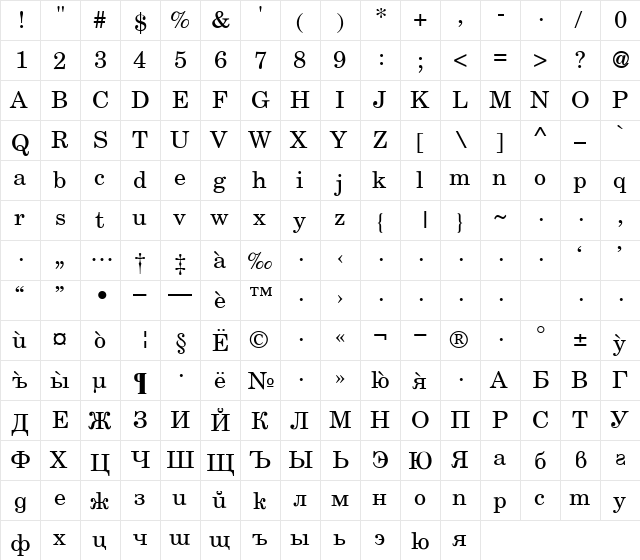
NewSaturionModernCyr Regular
Design Context for NewSaturionModernCyr Typeface
NewSaturionModernCyr takes a measured approach to typography — its balanced proportions and neutral character make it a reliable workhorse for both digital and print work.